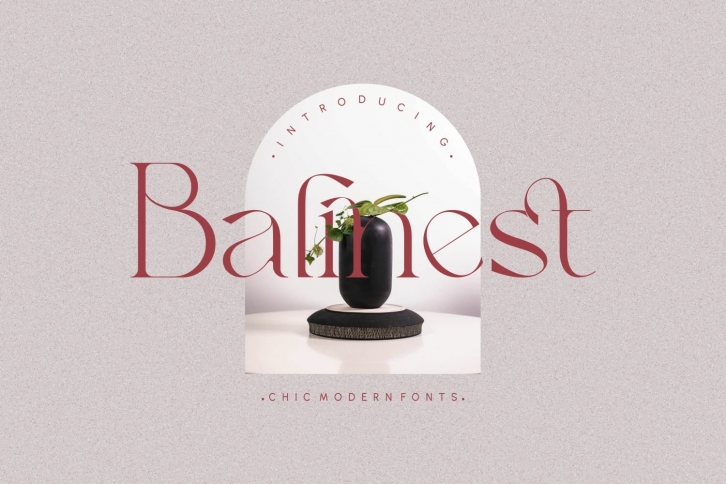
Balinest _ chic modern is a great font that was designed by Penatic Studio. Imagine the amount of combinations you can create using this font! The archive is 4.54 MB and it was released on September 5, 2021. Balinest _ chic modern looks beautiful on wedding invitations, greeting cards, logos, posters, labels, t-shirt designs, logos, business cards and is perfect for use in ink or watercolor works, fashion, magazines, packaging and food menus, children's books and more!